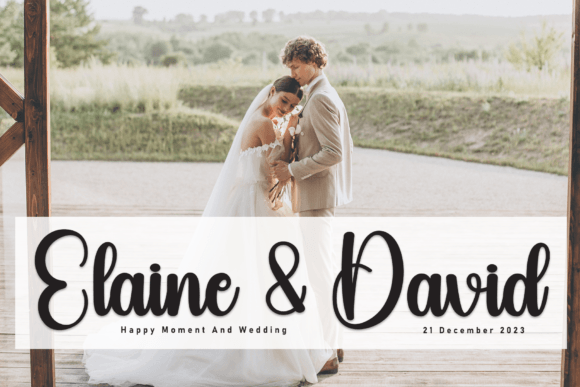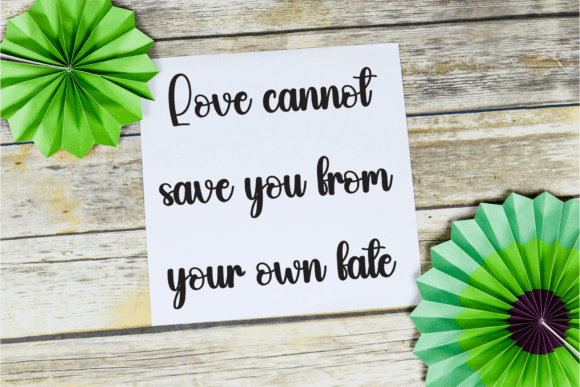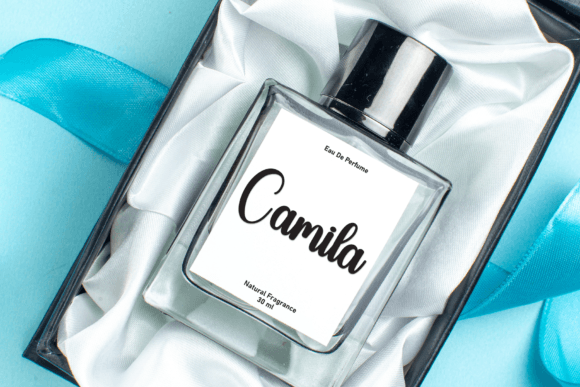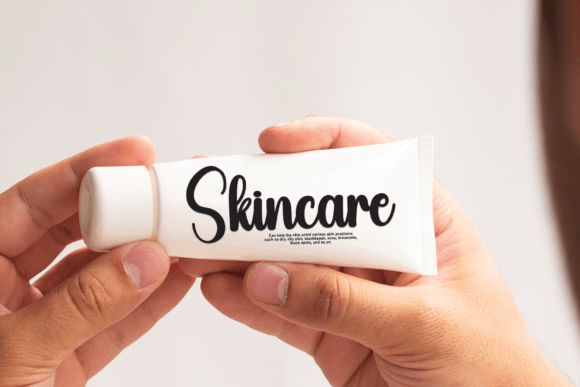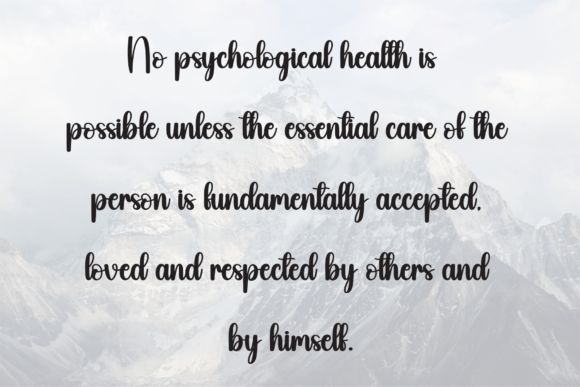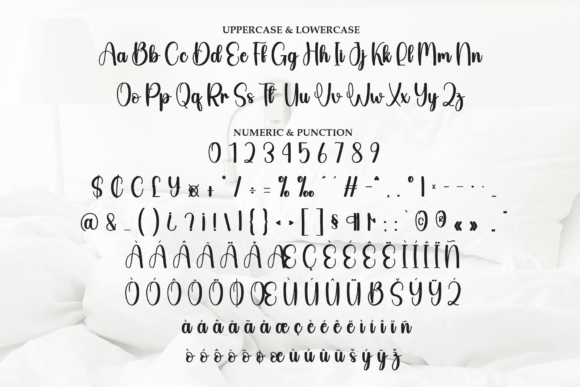
Introducing Blanket Font: The Sweet and Friendly Handwritten Font for Your Creative Projects
Are you a designer, crafter, or DIY enthusiast looking for a font that can add a personal touch to your projects? Look no further than Blanket Font, a sweet and friendly handwritten font that’s perfect for a wide range of designs. With its natural and unique style, Blanket Font is incredibly versatile and can be used in various creative projects, from crafting and DIY tutorials to branding and marketing materials.
The Charm of Blanket Font
Blanket Font is a beautifully crafted handwritten font that’s designed to evoke a sense of warmth and friendliness. Its natural and unique style makes it perfect for designers and crafters who want to add a personal touch to their projects. Whether you’re creating a handmade card, a customized gift tag, or a brand identity, Blanket Font is sure to make your project stand out.
One of the best things about Blanket Font is its versatility. It can be used in a variety of design projects, from formal and informal documents to digital and print materials. The font’s sweet and friendly style makes it perfect for:
- Handmade crafts and DIY tutorials
- Branding and marketing materials
- Wedding and event invitations
- Stationery and greeting cards
- Digital and print blogs
What Makes Blanket Font So Special?
So, what makes Blanket Font so special? Here are just a few reasons why designers and crafters love this font:
- Unique and natural style: Blanket Font has a one-of-a-kind style that’s both natural and unique. Its handwritten feel makes it perfect for projects that require a personal touch.
- Highly versatile: Blanket Font can be used in a wide range of design projects, from formal and informal documents to digital and print materials.
- Easily readable: Despite its handwritten style, Blanket Font is highly readable, making it perfect for body text and captions.
Tips and Tricks for Getting the Most Out of Blanket Font
Here are some tips and tricks for getting the most out of Blanket Font:
- Experiment with font sizes: Blanket Font looks great in a variety of font sizes, from small captions to large headings.
- Pair with other fonts: Blanket Font pairs well with other fonts, such as sans-serif fonts and script fonts.
- Use in combination with images: Blanket Font looks great when used in combination with images, such as photographs and illustrations.
In conclusion, Blanket Font is a sweet and friendly handwritten font that’s perfect for designers and crafters who want to add a personal touch to their projects. With its natural and unique style, Blanket Font is incredibly versatile and can be used in a wide range of design projects. Whether you’re creating a handmade card, a customized gift tag, or a brand identity, Blanket Font is sure to make your project stand out.